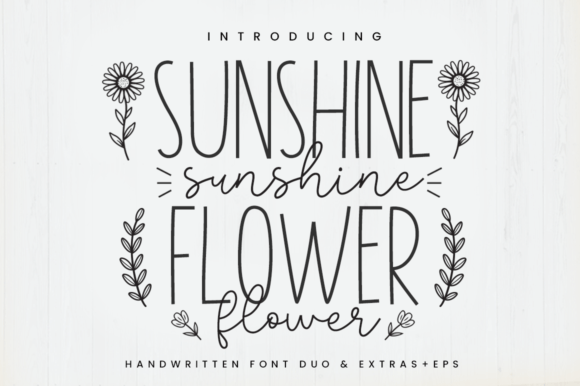
If you're looking to add a touch of personality and charm to your craft projects, Sunshine Flower Font is the perfect choice. This stunning script font family, created by Manjalistudio, consists of two fonts that work together in perfect harmony to create a unique and delightful look.
The tall sans serif and lovely handwritten duo will elevate your crafts and bring them to life with a touch of chic and cheer. Use them together or separately to create eye-catching designs that stand out from the crowd.
But that's not all - with Sunshine Flower Font, you also get an extra doodles font and EPS vector sunshine and rainbow, making it even more versatile for crafts such as stickers, vinyl, and Cricut. These added elements will help you create complete and polished designs that are sure to impress.
Whether you're a professional graphic designer or just starting out, Sunshine Flower Font is the perfect addition to your font collection. Use it for logos, packaging, social media graphics, and more - the possibilities are endless.